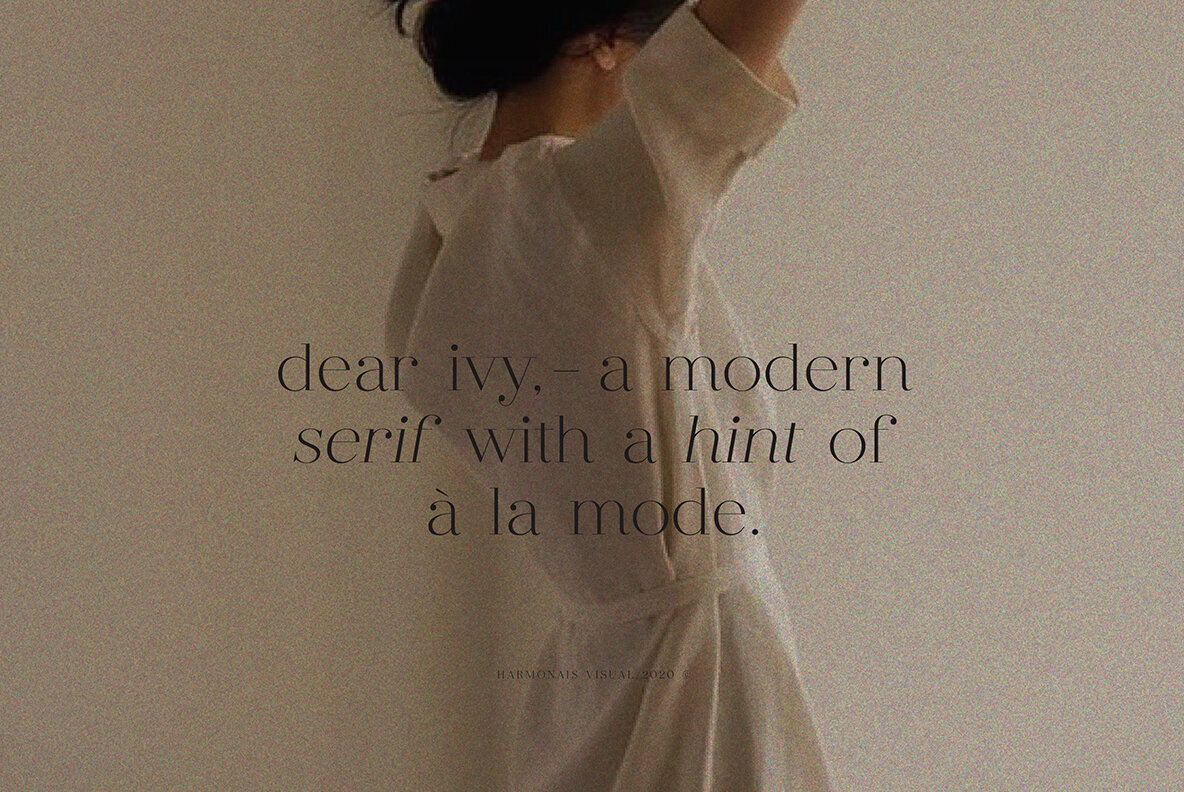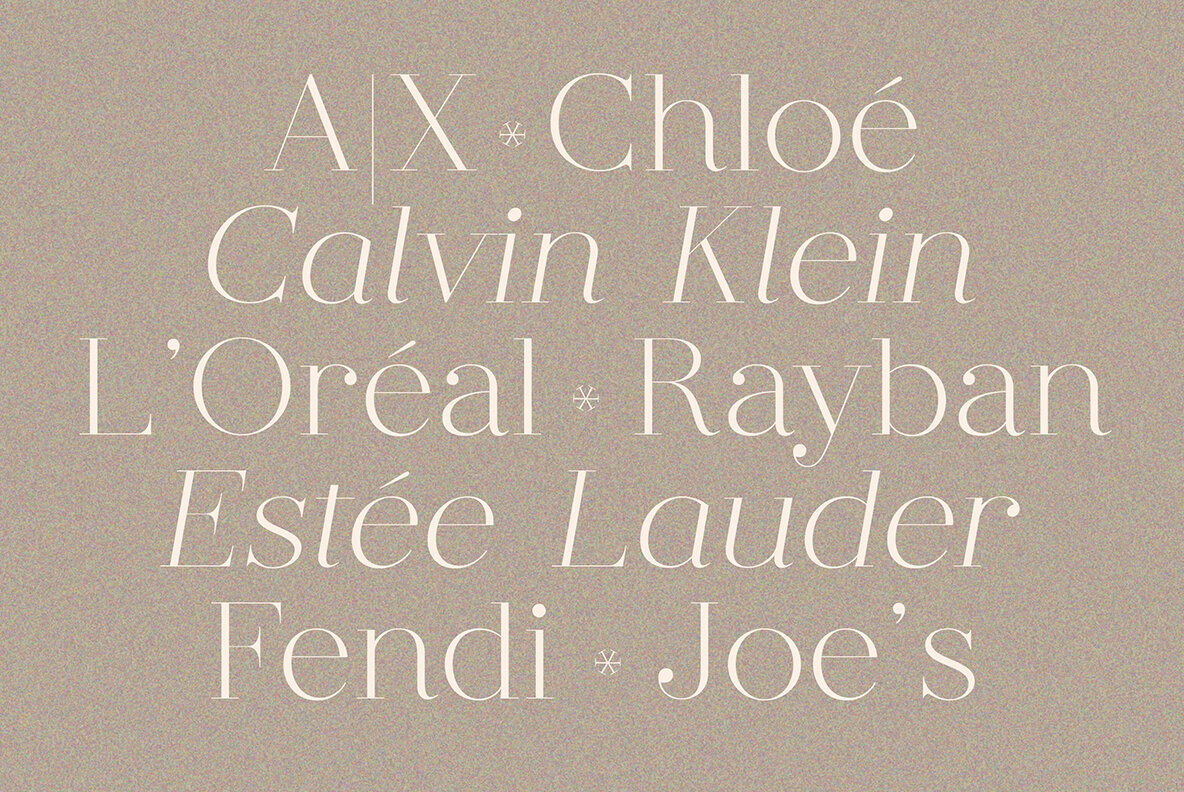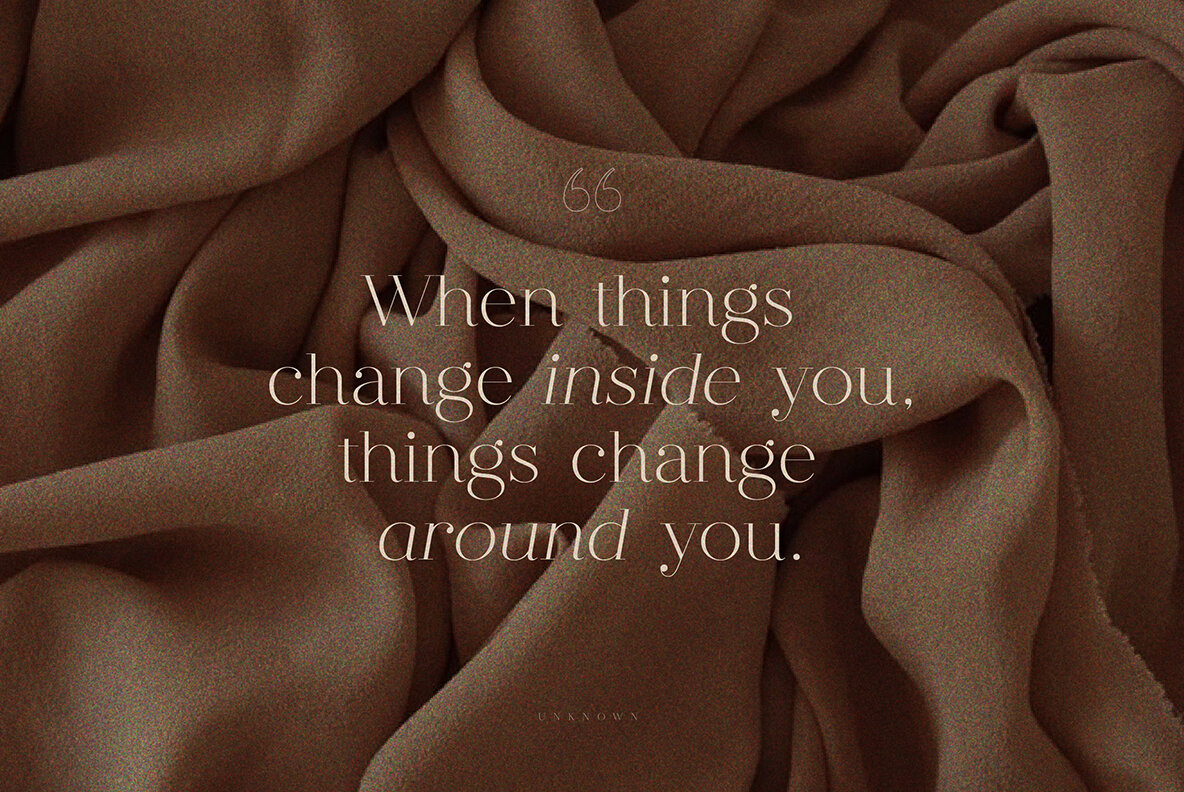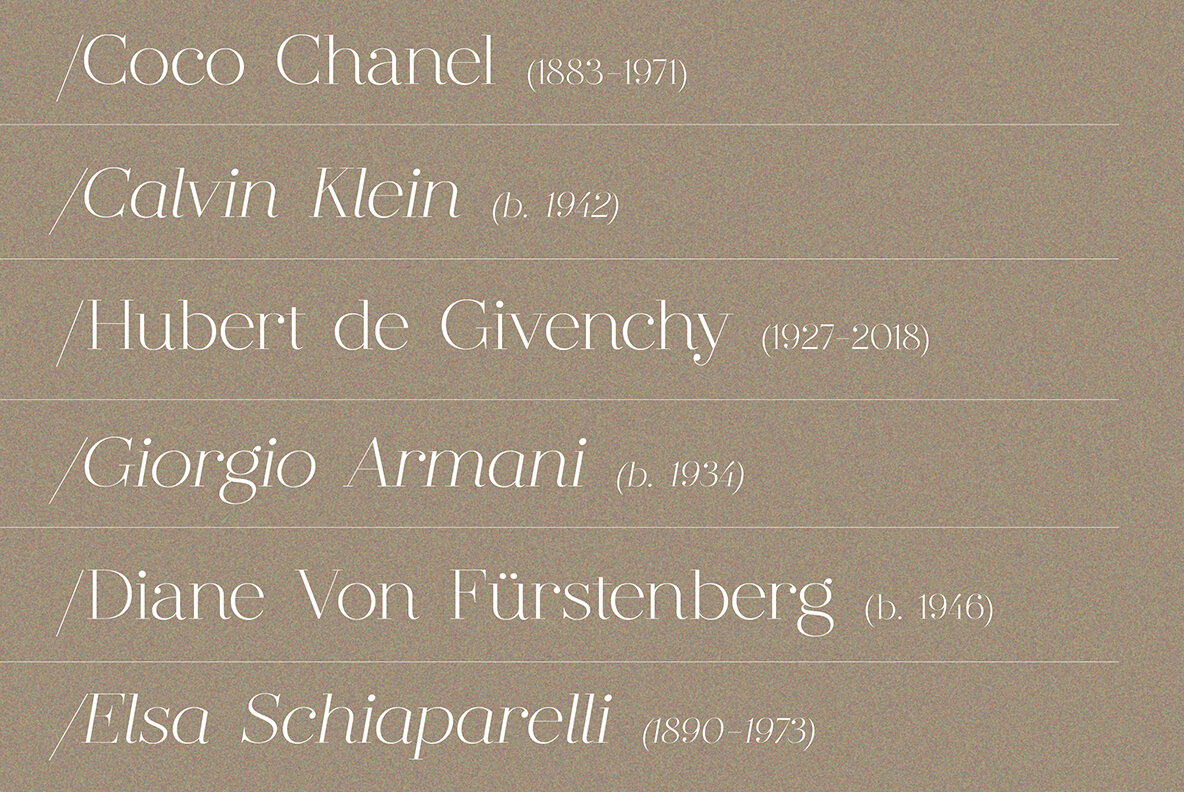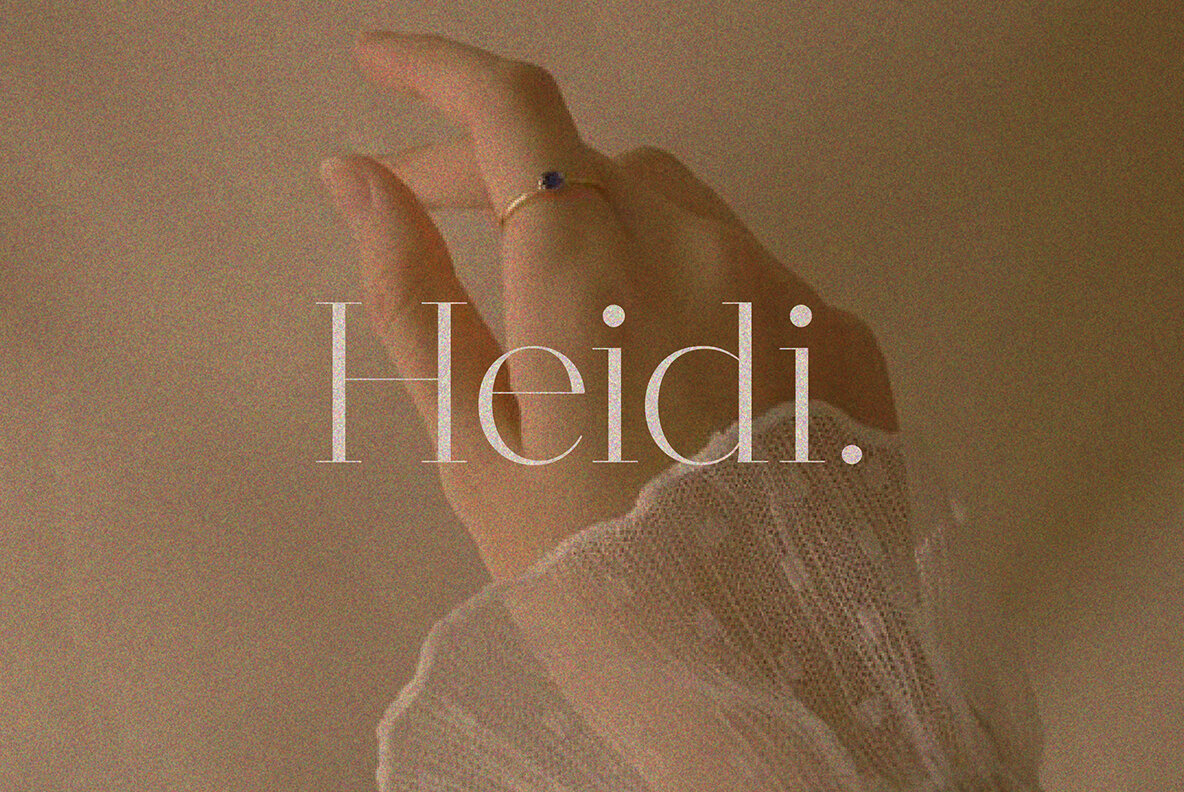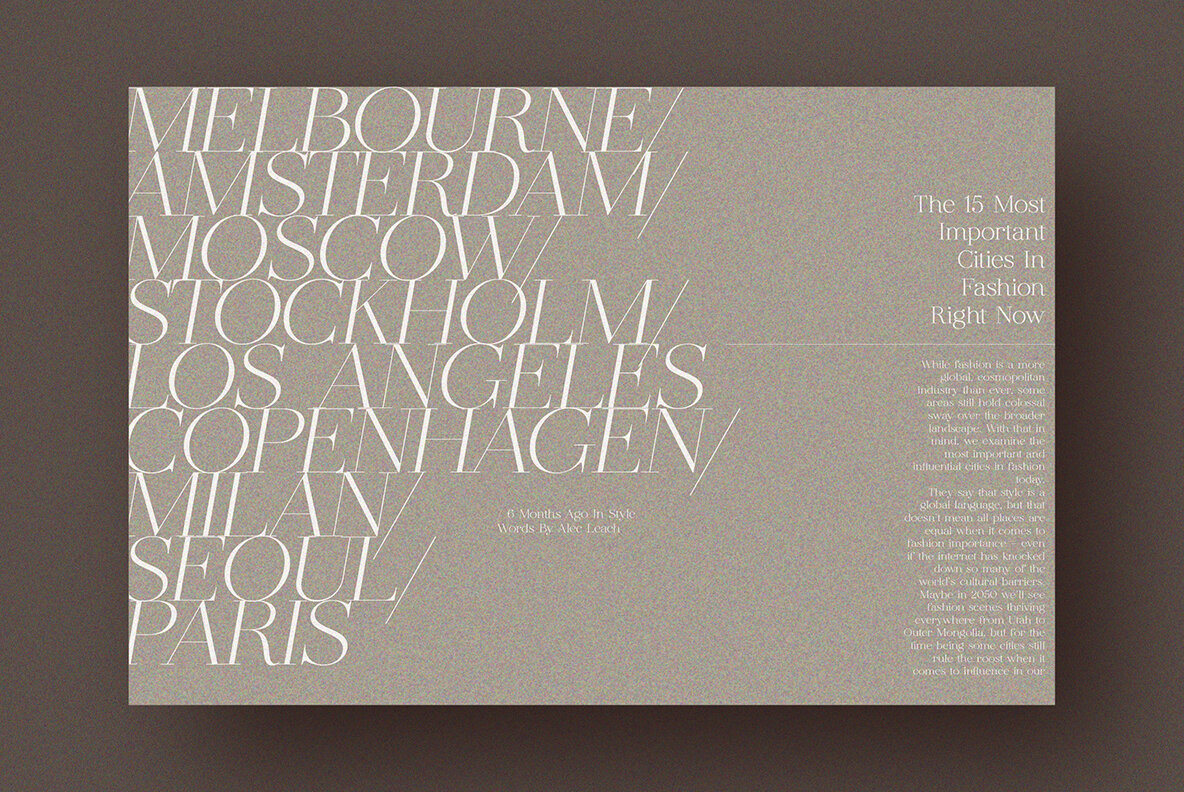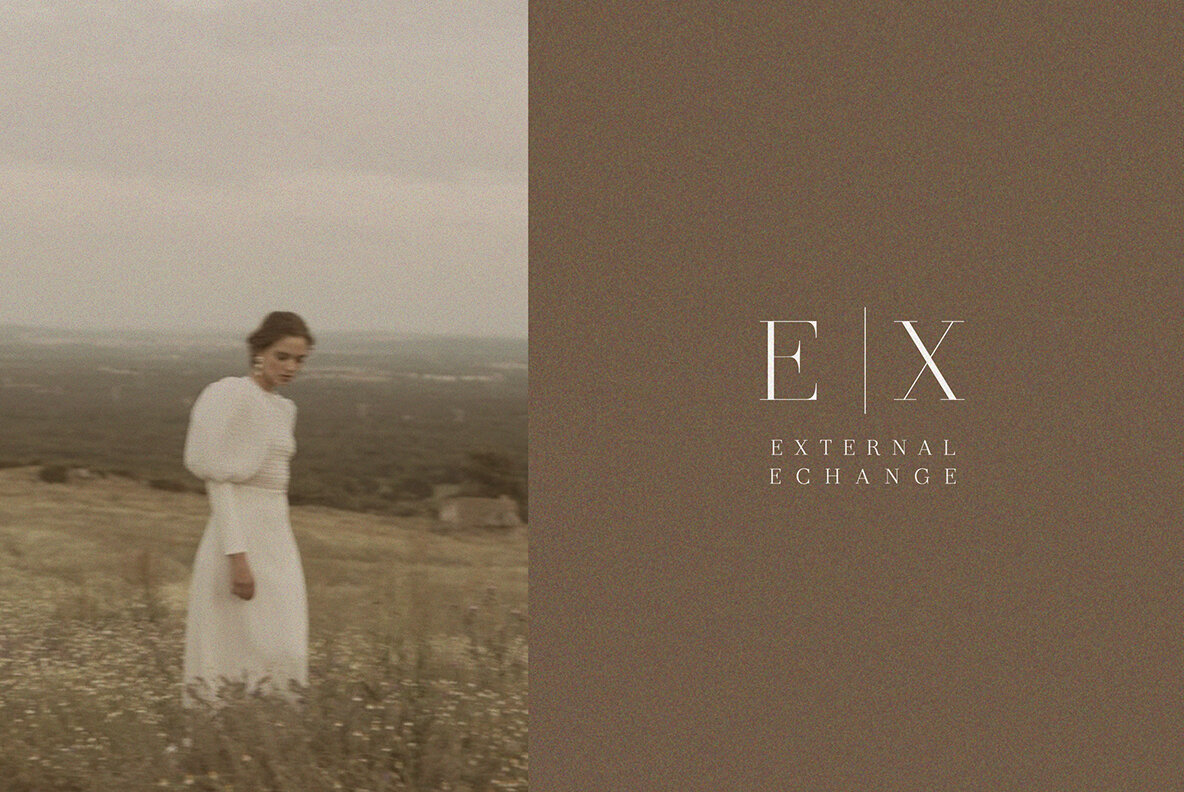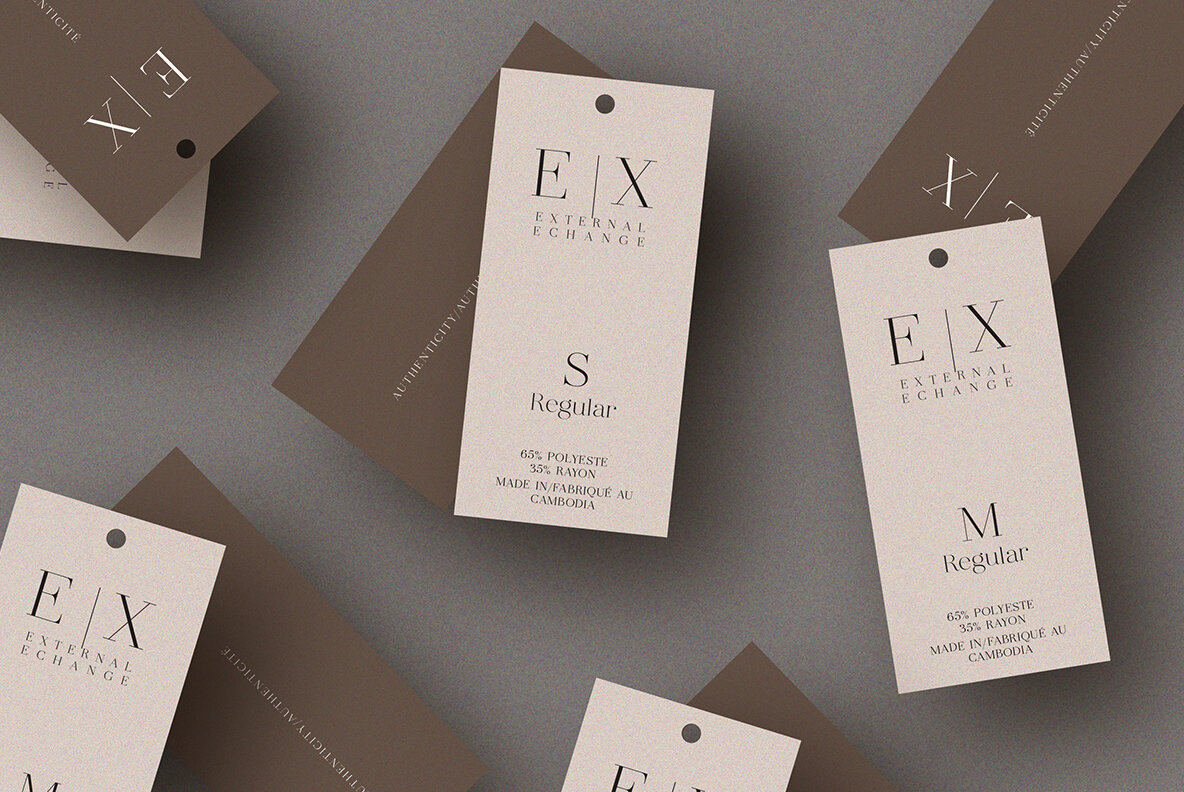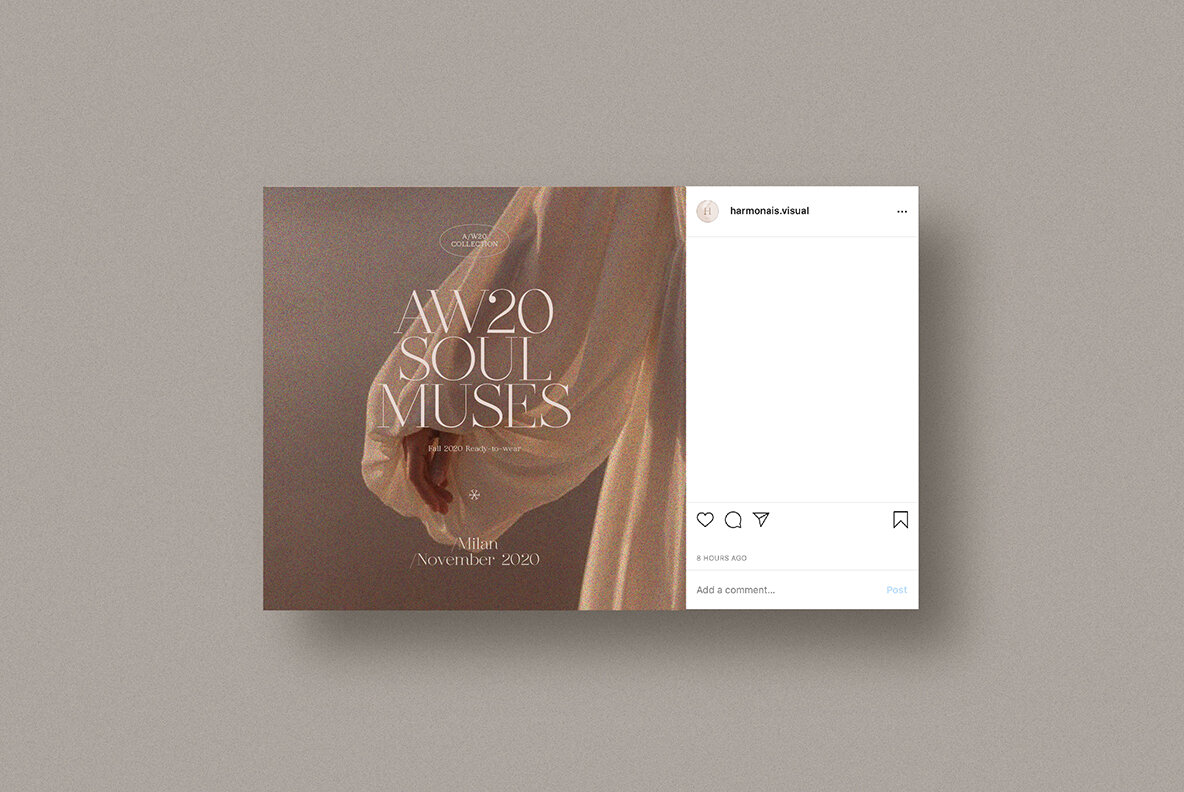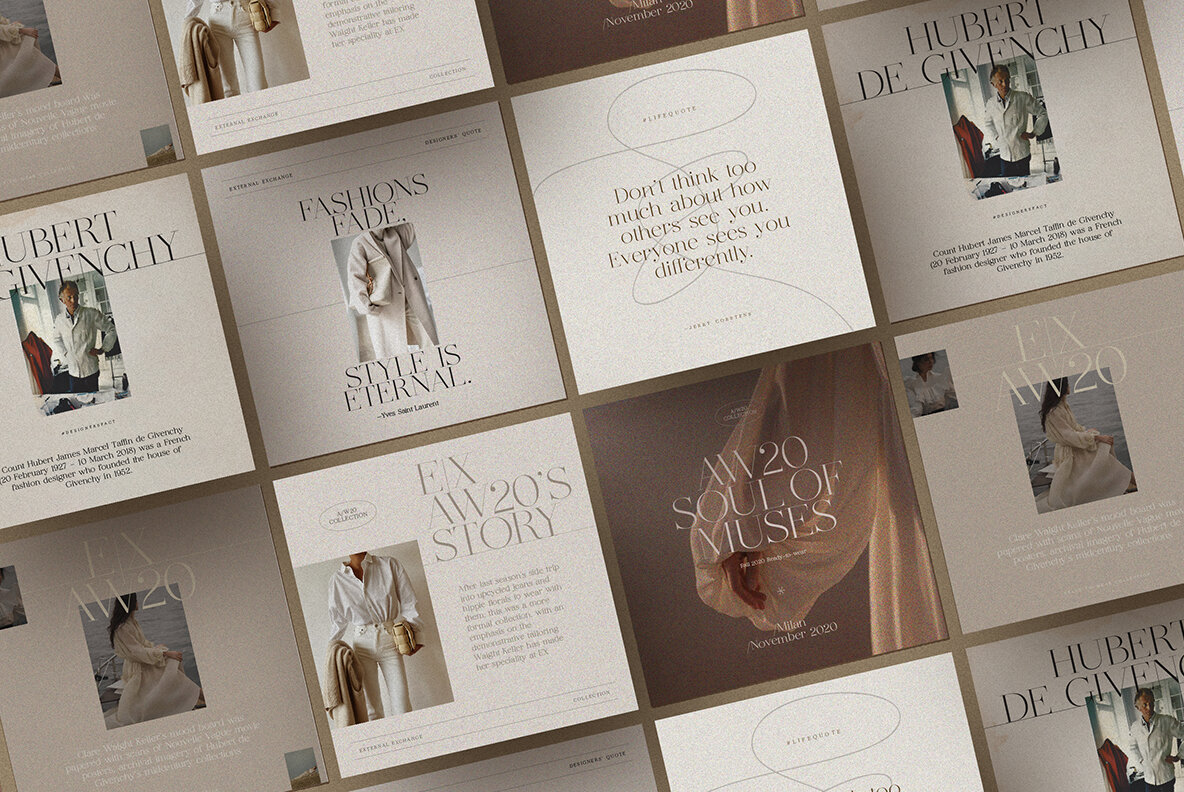
dear ivy Font
Infuse your projects with a touch of high fashion using Dear Ivy. Drawing inspiration from the timeless elegance of Didot aesthetics, this à-la-mode display serif is meticulously crafted for haute couture projects. Its striking design makes it the perfect choice for creating bold statements across titles, magazines, social media, and countless other platforms. Immerse your audience in the audacious charm Dear Ivy brings to every visual narrative.Dear Ivy: A Display Modern Serif with Didot Inspiration